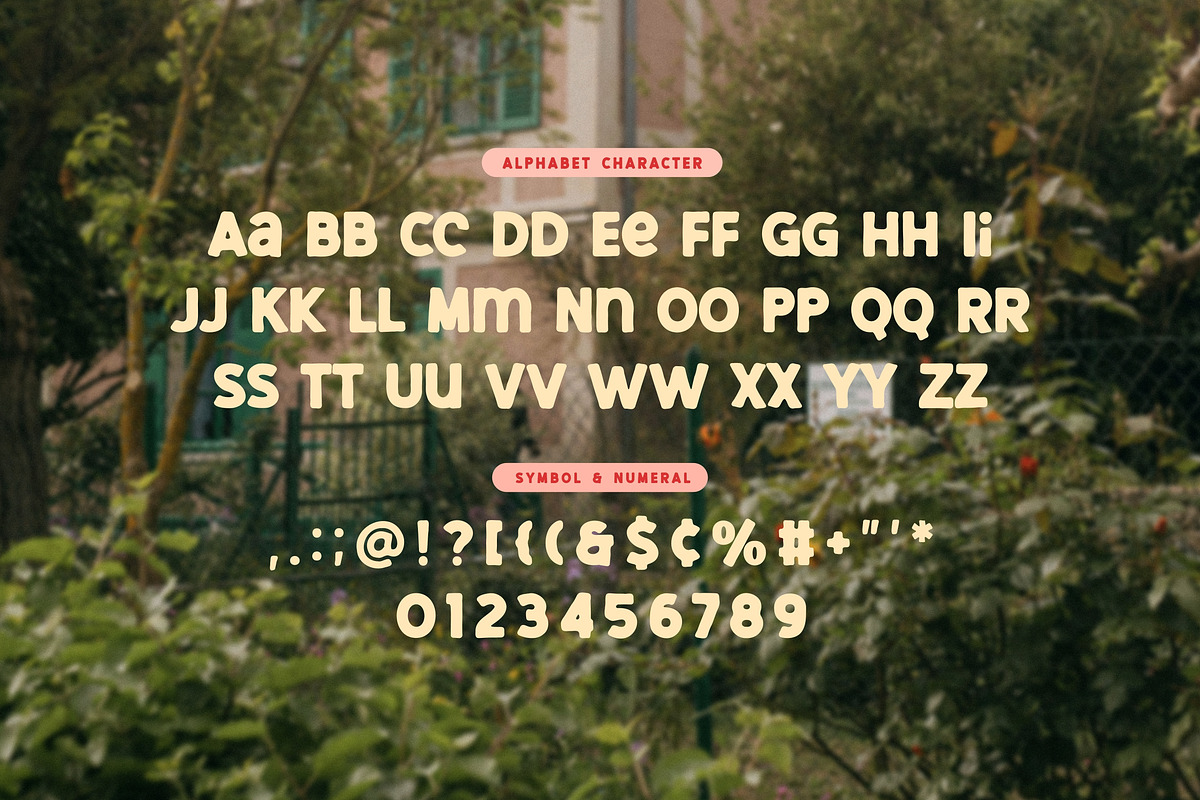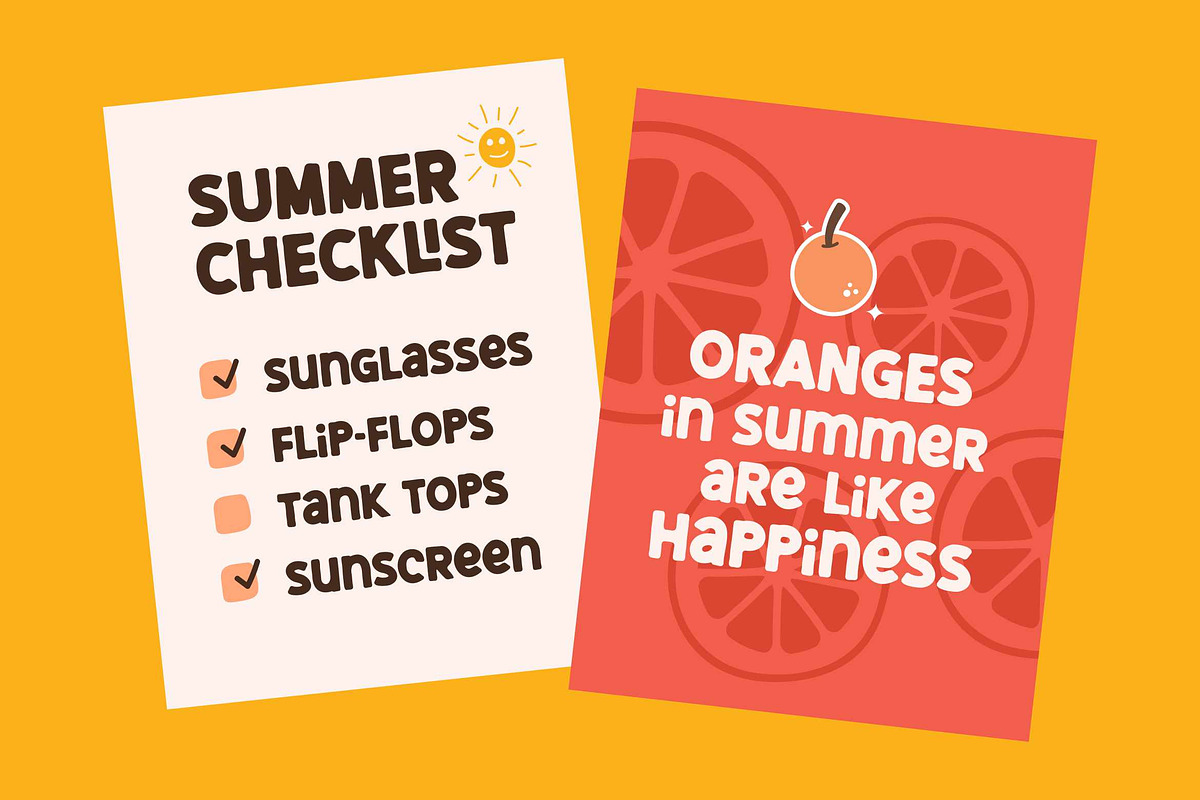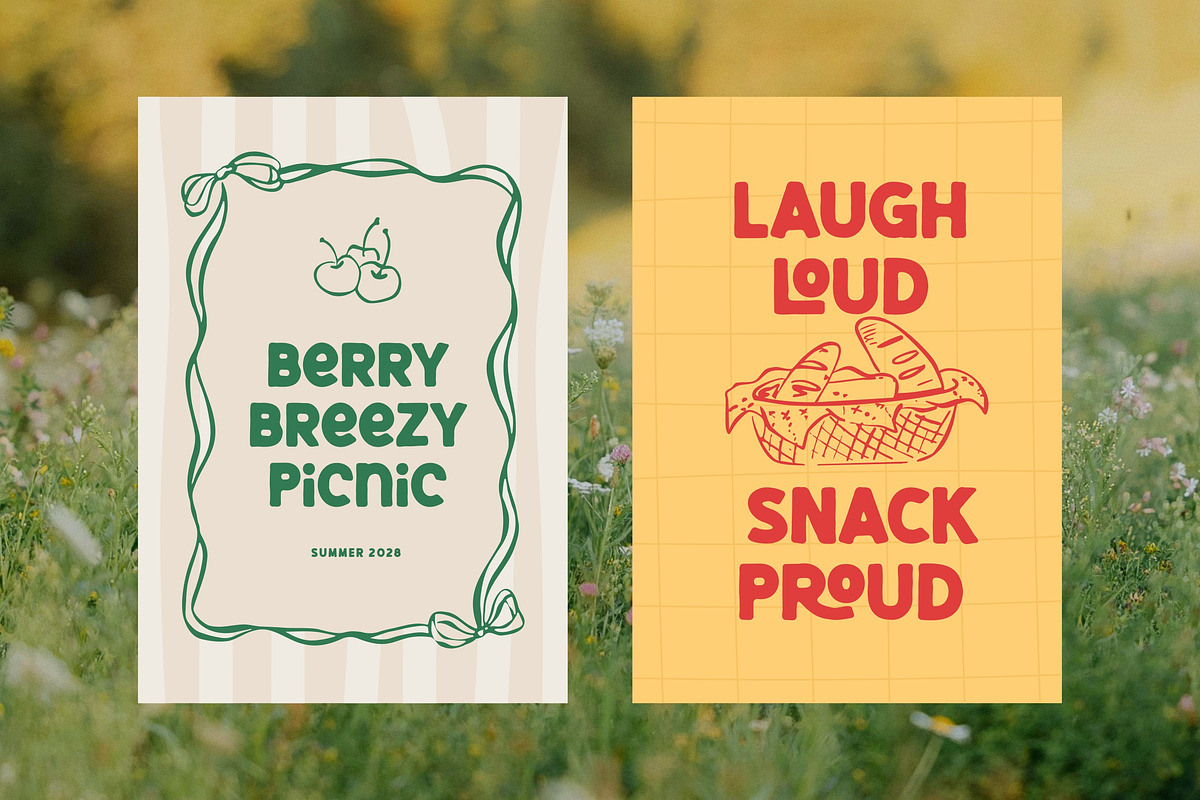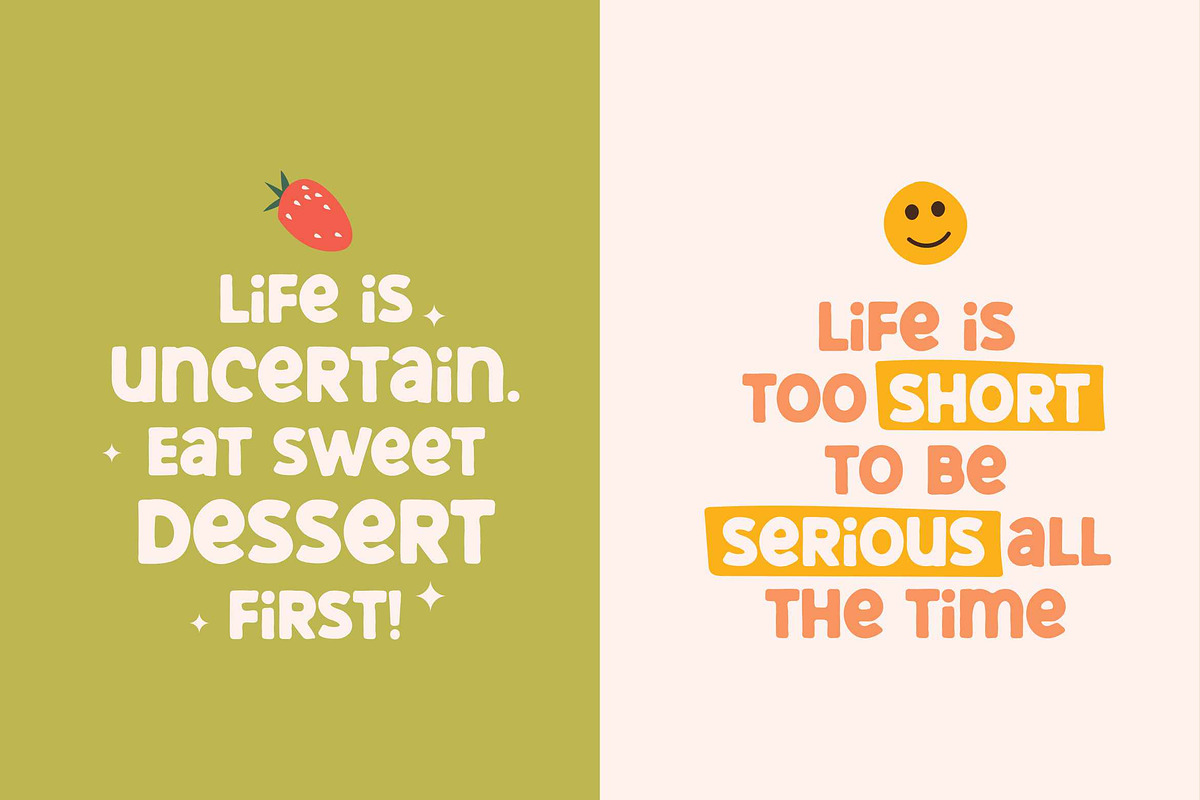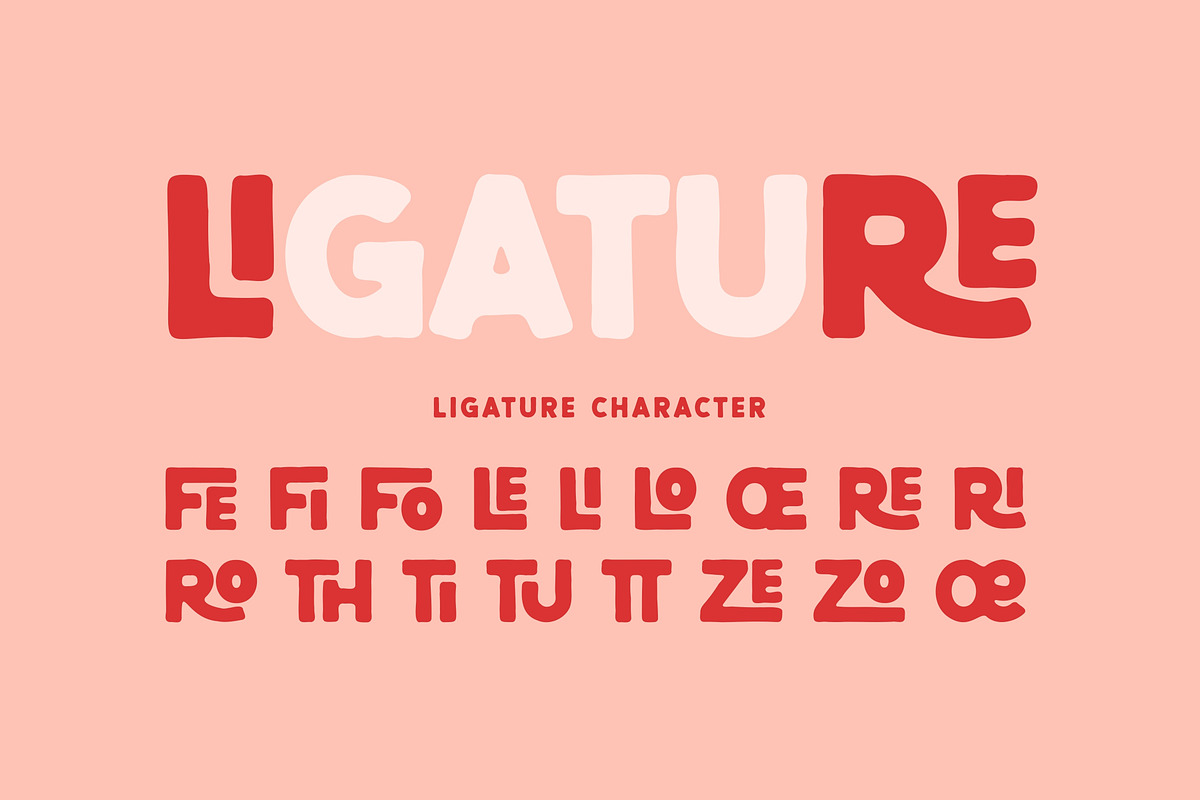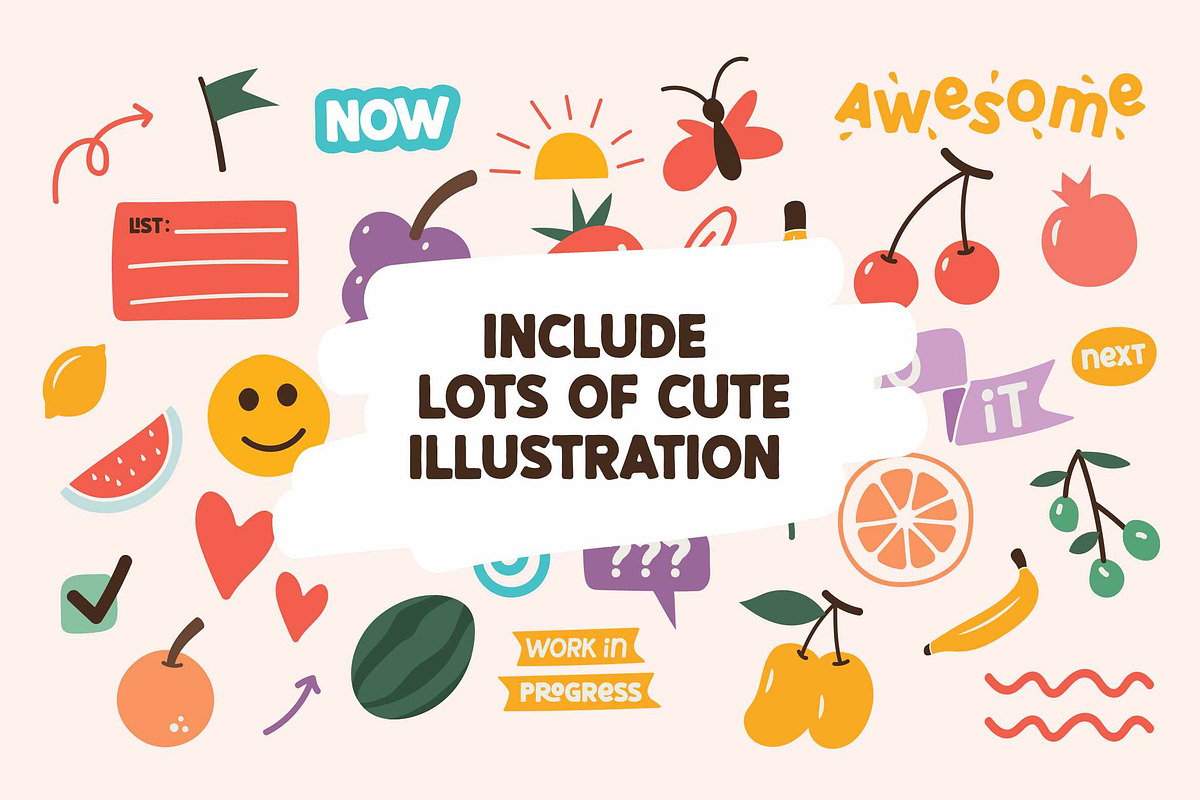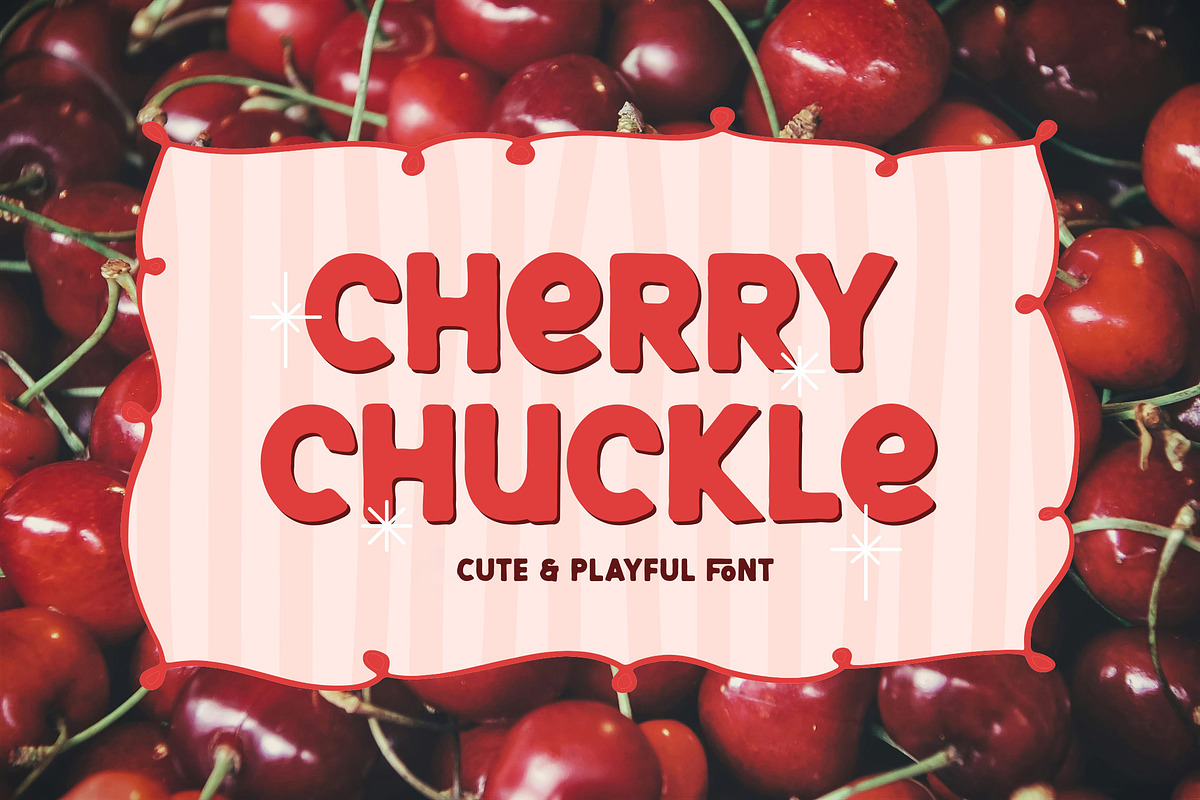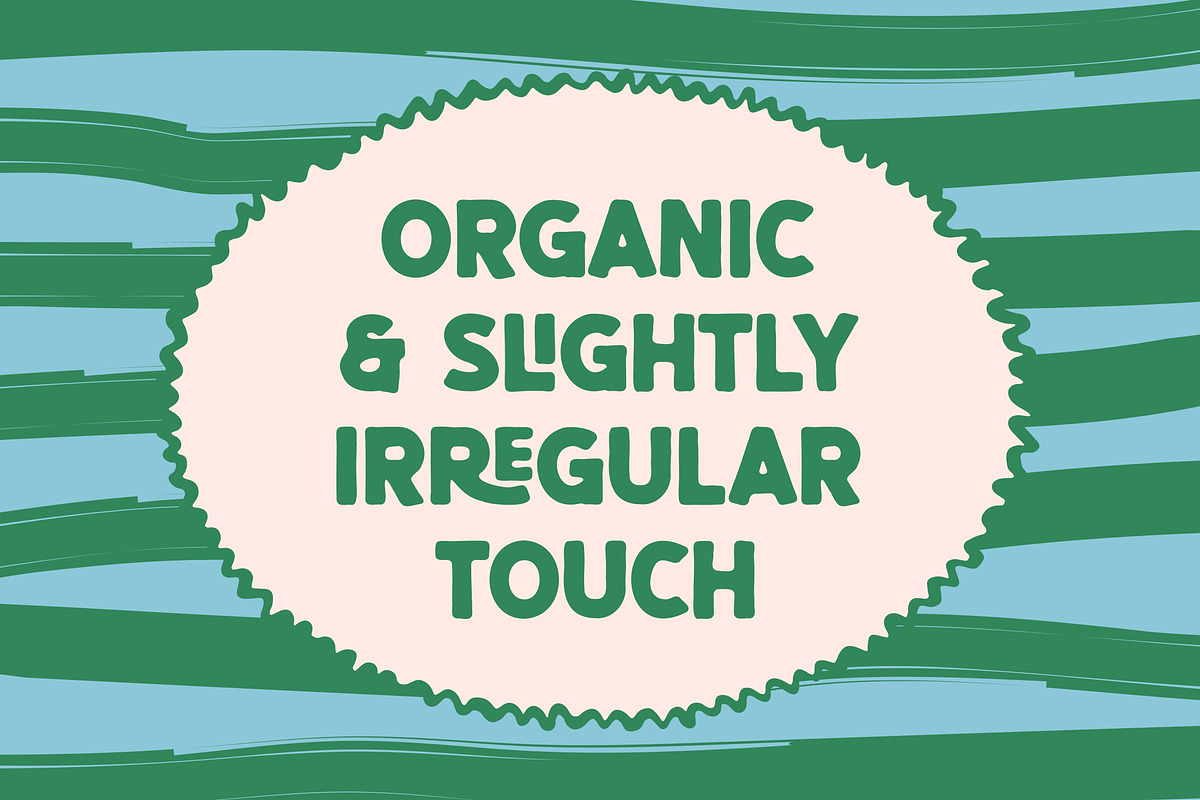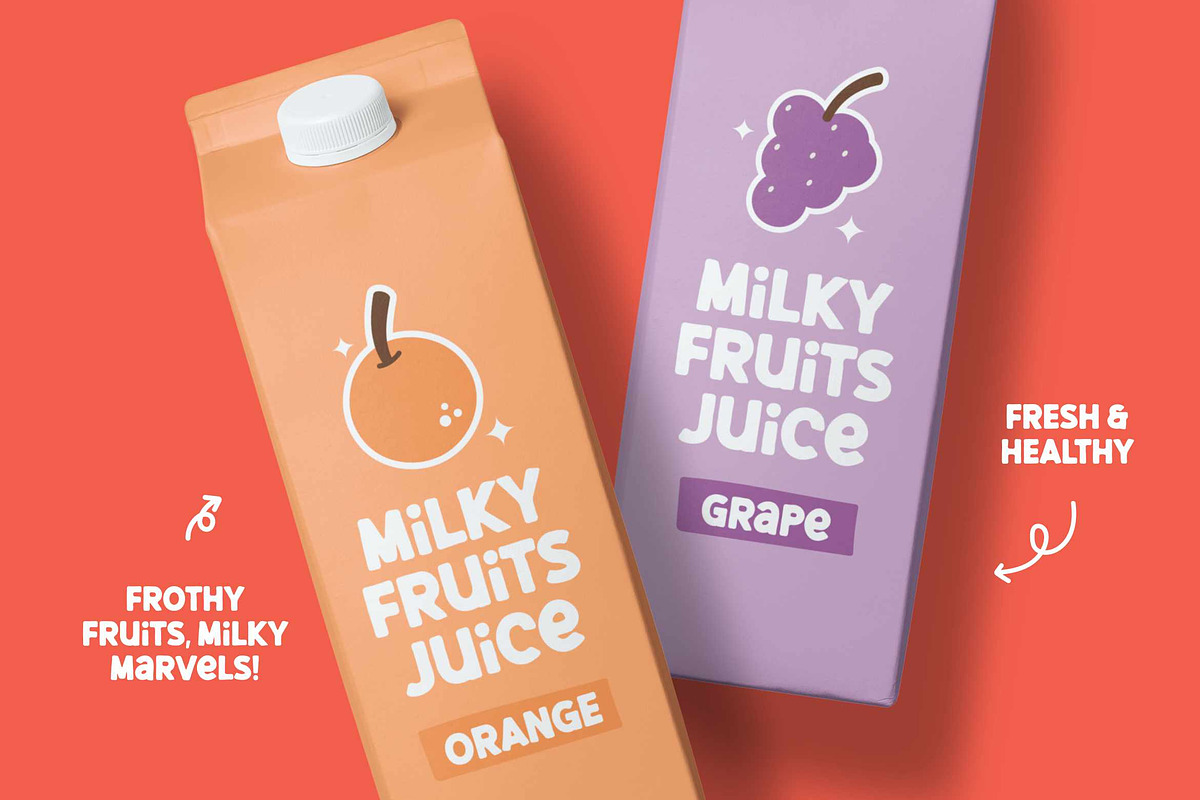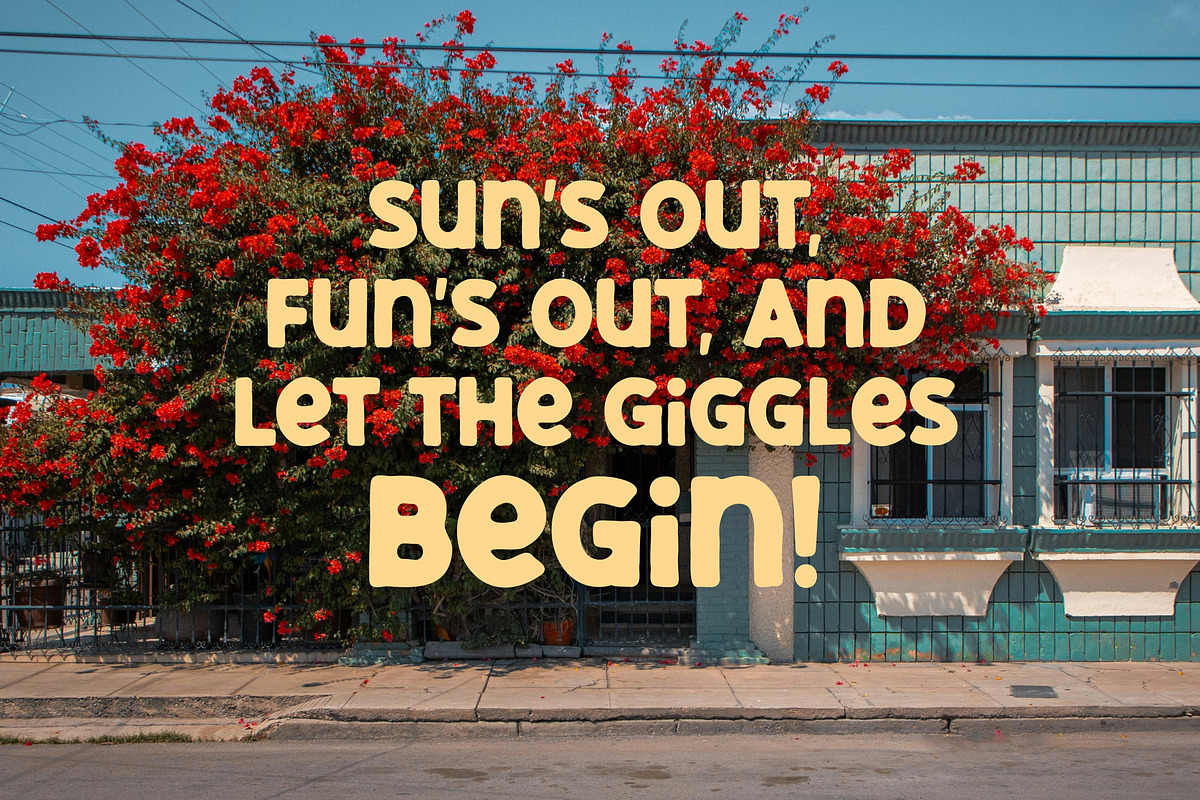
Cherry Chuckle - Chunky Hand Drawn
Cherry Chuckle is a chunky, hand drawn display font that radiates warmth, joy and pure playfulness. With its soft, rounded letterforms and delightfully irregular shapes, it feels like each character was carefully sketched with a cheerful wink.
Whether you're designing children's book covers, snack packaging, greeting cards, picnic posters or social media quotes, Cherry Chuckle brings an irresistible friendly vibe.